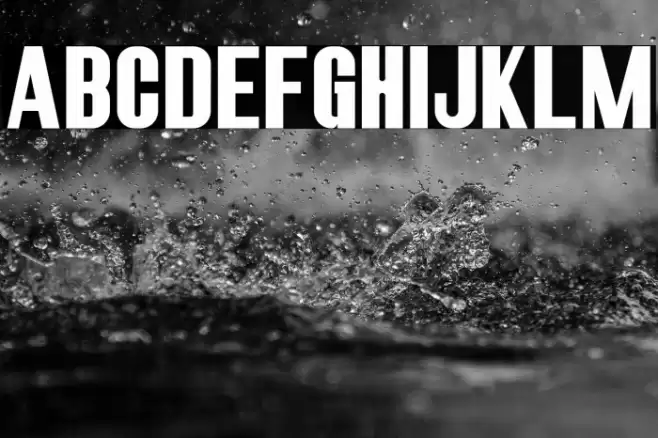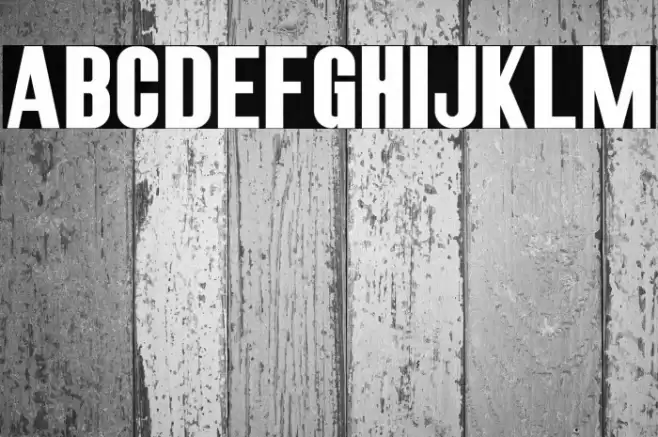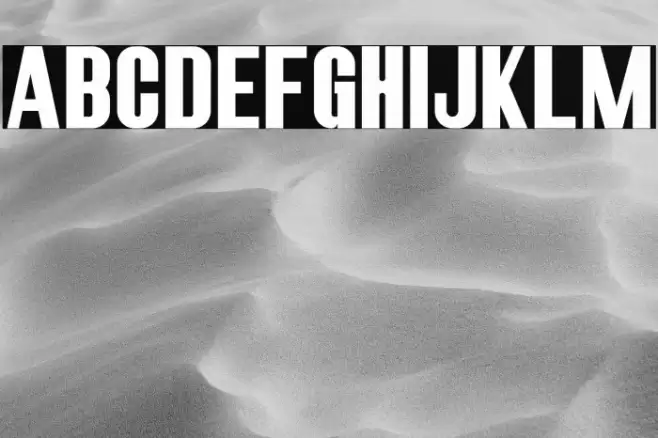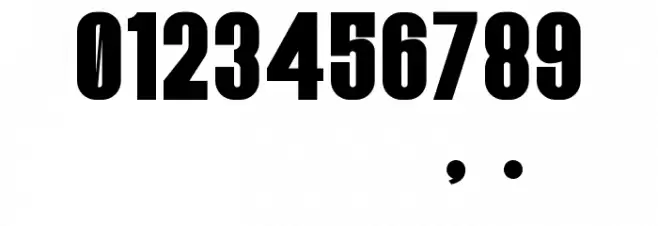
RobustaIISans-Regular Font
RobustaIISans-Regular Description
This font showcases a bold and impactful design, characterized by thick, uniform strokes that convey a sense of strength and modernity. The uppercase letters are prominent and assertive, making them ideal for attention-grabbing headlines. The numerals are equally bold, ensuring clarity and readability. The overall design is clean and straightforward, with a slight geometric influence that adds to its contemporary appeal. The spacing between characters is tight, enhancing the compact and robust appearance of the text.
A bold, modern font with thick strokes and tight spacing, ideal for headlines from Uncategorized fonts.
- Font: RobustaIISans-Regular
- Proposed Projects: This font is perfect for branding projects, posters, and any design that requires a strong visual impact. It can be effectively used in advertising, packaging, and digital media where boldness is key.
- Character Spacing: Tight